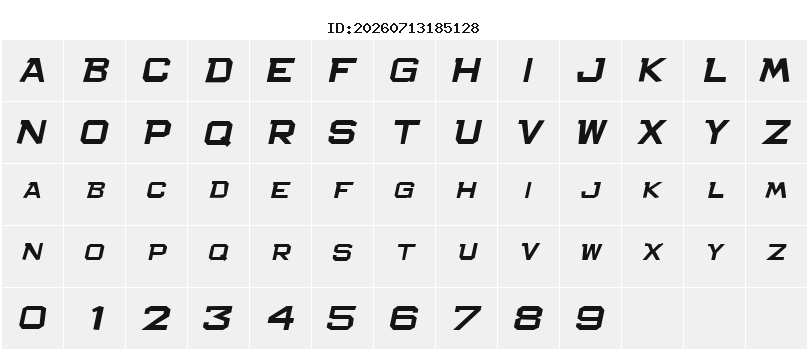
Bachelor Pad Expanded JL Preview
• Font Name: Bachelor Pad Expanded JL
• Full Font Name: Bachelor Pad Expanded JL Italic
• Designer: Jeffrey N. Levine
• Manufacturer: Jeff's Fonts & Dingbats
• Description: Expanded Italic version of "Bachelor Pad JL".
About Bachelor Pad Expanded JL.ttf
Bachelor Pad Expanded JL.ttf is a modern, elegant sans-serif font designed for ultimate readability and visual harmony. Perfect for branding, headlines, web design, and print materials.